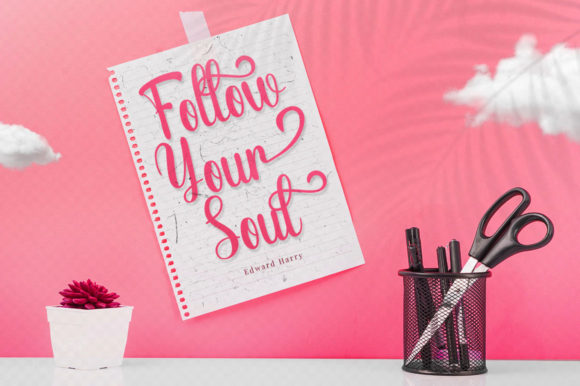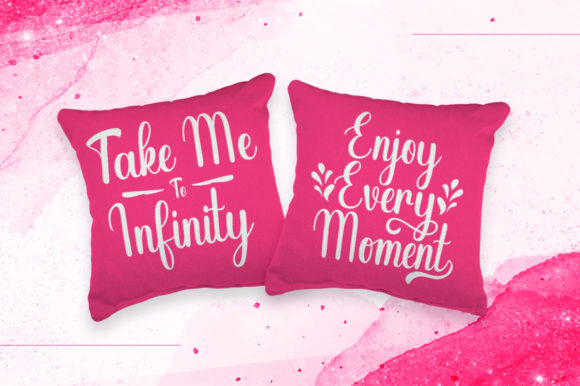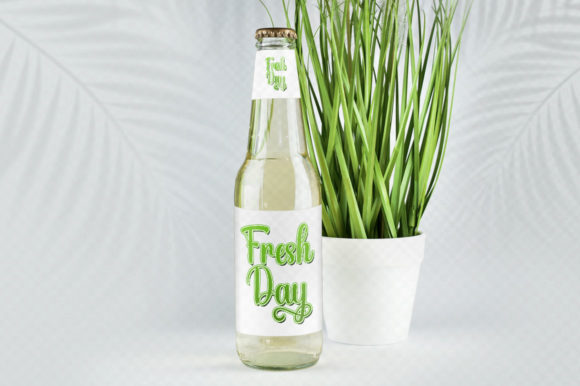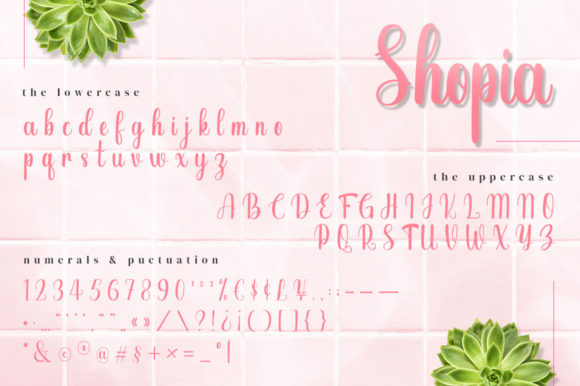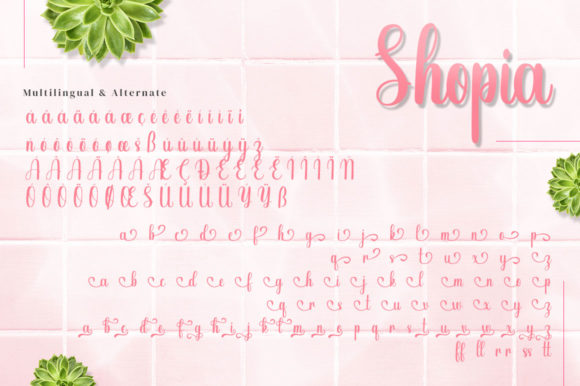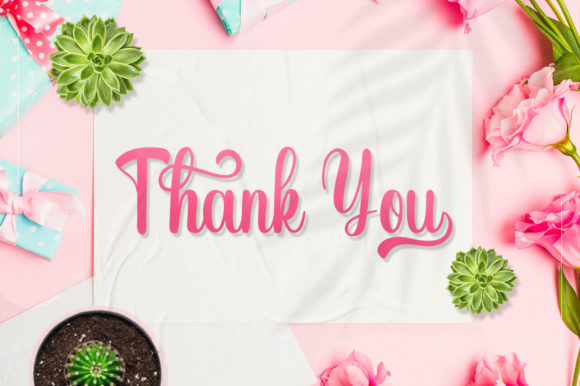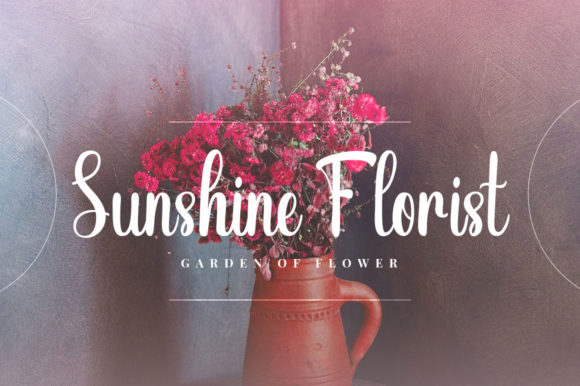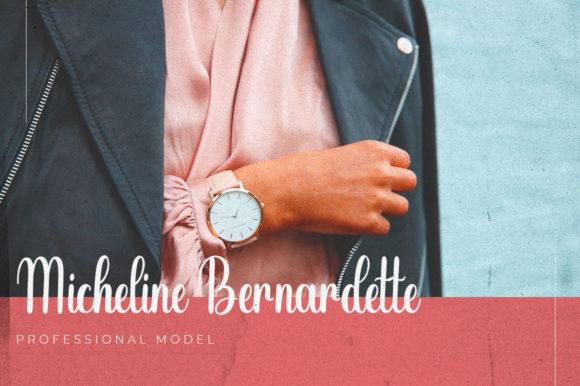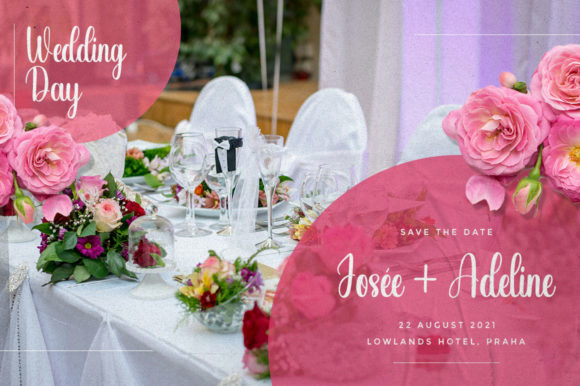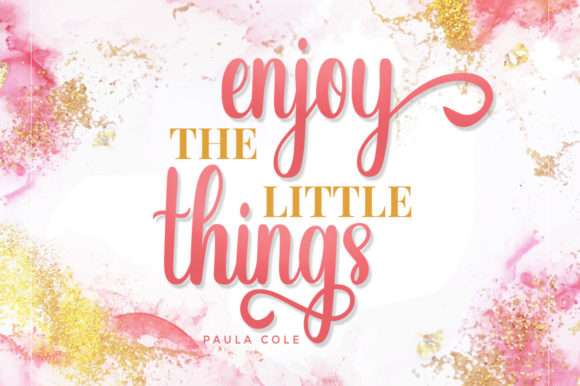
Shopia Font
About Shopia Font
Sophia is a stylish and elegant handwritten font that exudes friendliness and sophistication. With its unique and carefully crafted letterforms, this font adds a touch of elegance to any design project.
The flowing and graceful strokes of Sophia make it a versatile choice for various applications. Whether you’re working on branding projects, logo designs, brochures, business cards, or wedding invitations, this font can elevate your creations to the next level. Its refined and stylish appearance brings a sense of professionalism and charm to your designs.
The PUA encoding of Sophia allows for easy access to all the beautiful glyphs and swashes it offers. You can effortlessly add extra flourishes, ligatures, and decorative elements to enhance your typography and give your designs a more personalized touch.
Sophia’s versatility extends beyond printed materials. It also works well in digital designs, such as social media graphics, website headers, and blog posts. Its elegant and legible letterforms ensure readability across different platforms and screen sizes.
Whether you’re aiming for a classic and timeless look or a contemporary and chic style, Sophia can adapt to your creative vision. Its balance of friendliness and elegance makes it suitable for a wide range of industries, from fashion and beauty to hospitality and lifestyle.
In summary, Sophia is a stylish handwritten font that combines friendliness and elegance. Its PUA encoding allows for easy access to a variety of glyphs and swashes, adding extra versatility to your designs. Whether you’re creating branding materials, logos, wedding invitations, or digital graphics, Sophia brings a touch of sophistication to your projects. Embrace the beauty and charm of Sophia as you craft your wonderful creations.